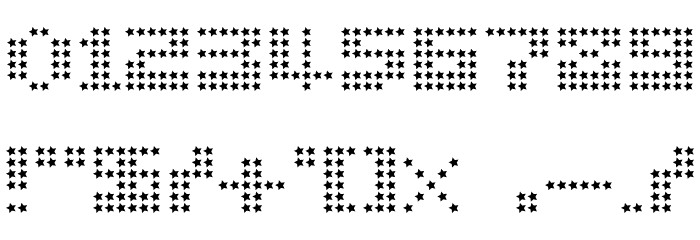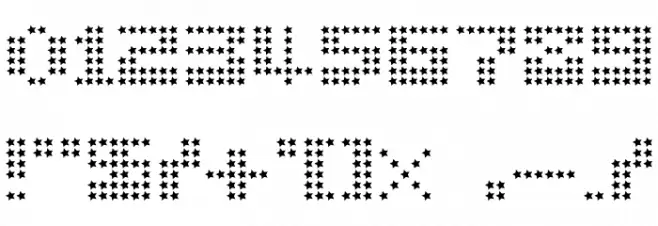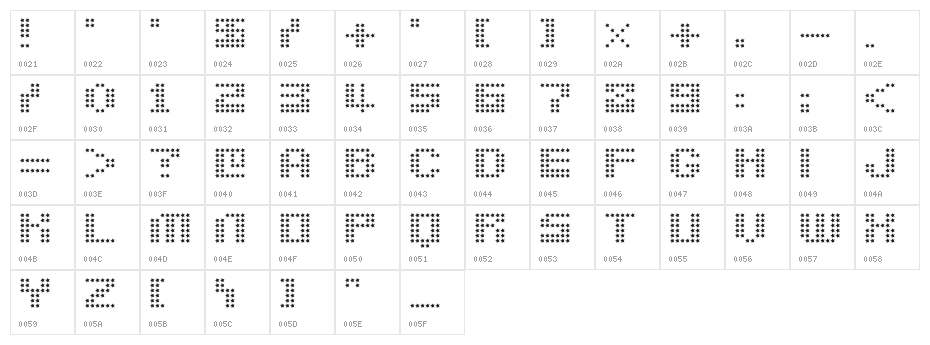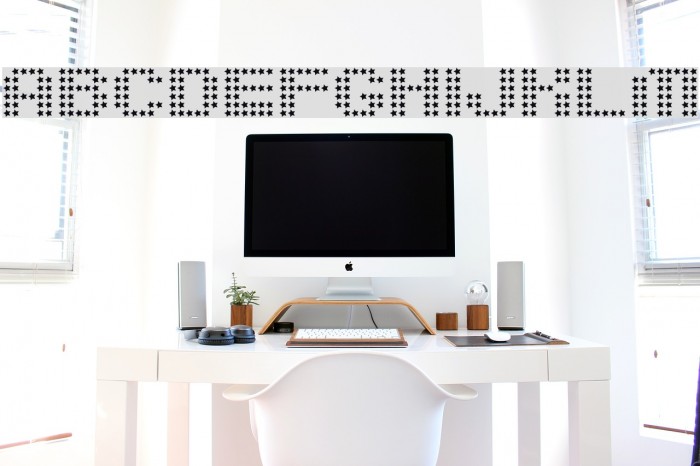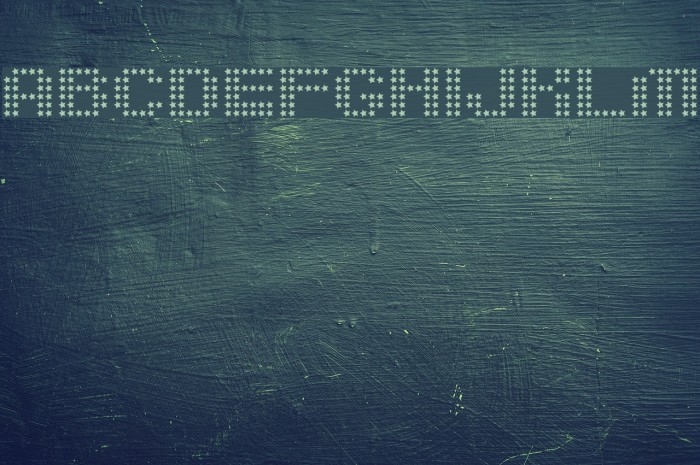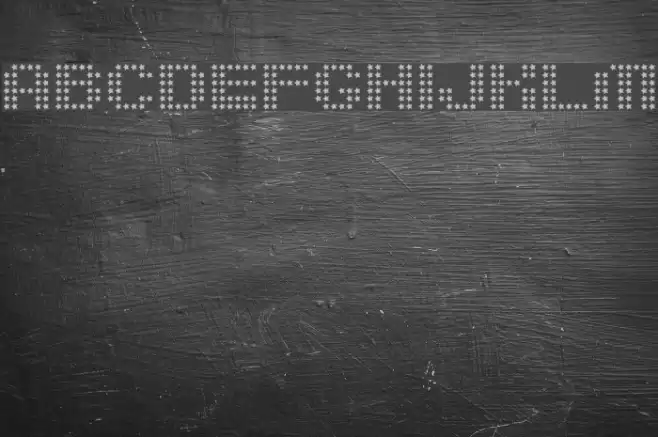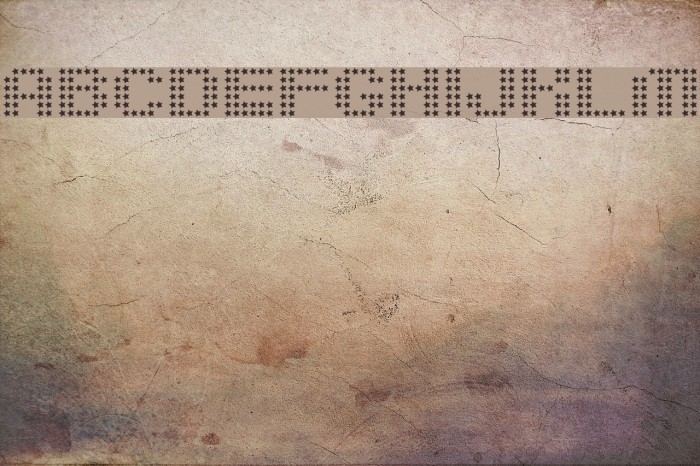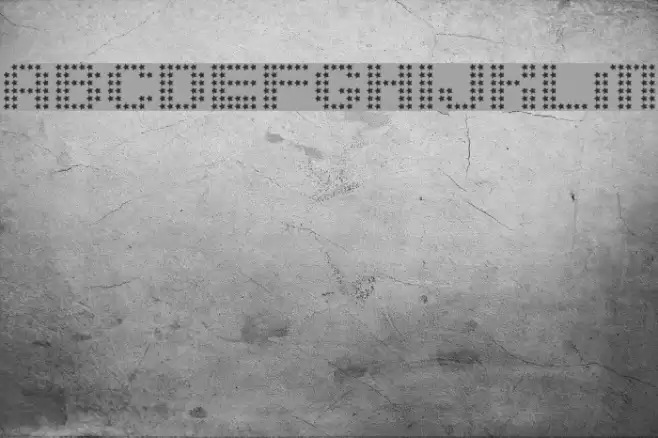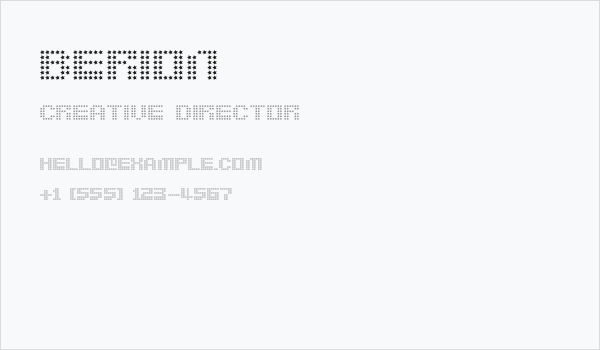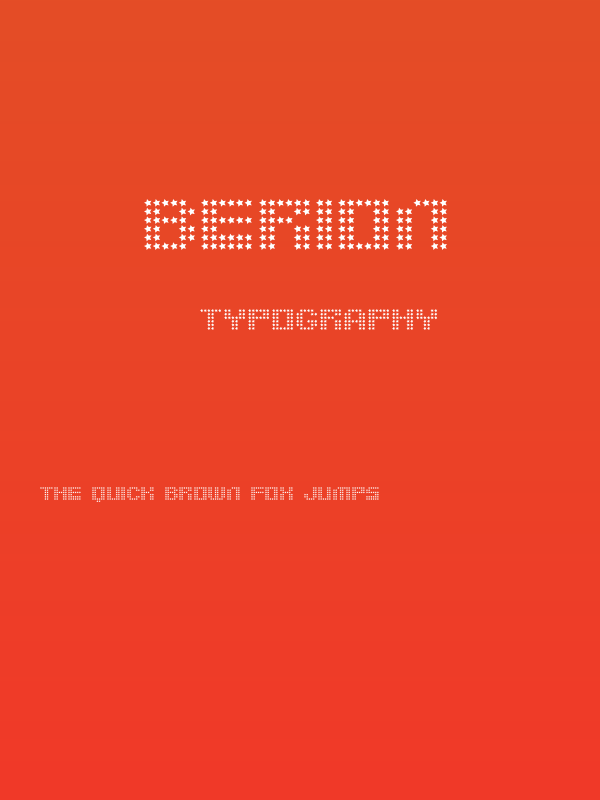
berion Font
berion Description
This font features a unique design where each character is constructed from a series of small, evenly spaced stars. The characters maintain a consistent height and width, creating a uniform and cohesive appearance. The star pattern gives the font a playful and decorative feel, making it stand out in any design. The uppercase and lowercase letters are distinct yet harmonious, and the numerals and special characters are crafted with the same attention to detail. This font is ideal for projects that require a touch of whimsy and creativity, while still maintaining readability.
| Proposed Projects | Ideal for children's book covers, party invitations, festive banners, and creative branding projects. |